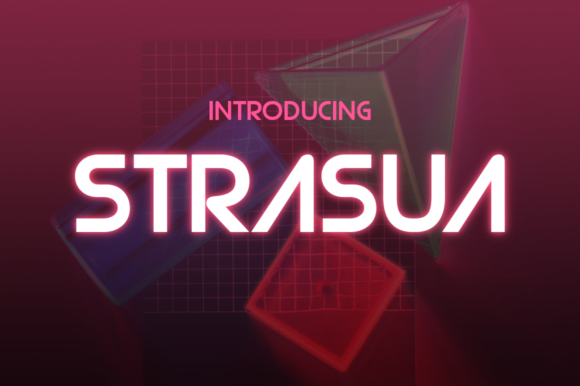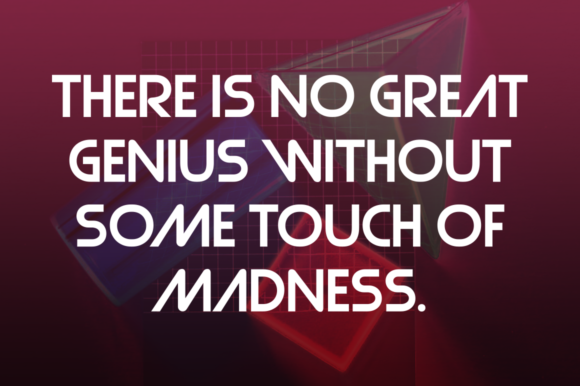
HomePersonal Use FreeStrasua Personal Use Free Strasua FacebookTwitterPinterestWhatsApp 1 of 2 About Strasua Font Strasua is a cool, sleek display font that is perfect for use in modern and minimal technology driven designs. This free font comes from Typodermic. DOWNLOAD NOW People also explored Celistyne Font Pure Dance Font Ampersand | 48 Different Styles Font Mold Papa Dino Font Eldra Font South Font Rabitius Font Zincand Font 118 0 TagsStrasuaStrasua Font Previous articlePlanet Benson 2Next articleUnispace LEAVE A REPLY Cancel reply Comment: Please enter your comment! Name:* Please enter your name here Email:* You have entered an incorrect email address! Please enter your email address here Website: Save my name, email, and website in this browser for the next time I comment. Personal Use Free Made of Concrete Personal Use Free Read more about this font Beloved Script Personal Use Free Read more about this font Ashay Personal Use Free Read more about this font Artisan Signature Personal Use Free Read more about this font BLOG Best Fonts for YouTube Videos: Make Your Thumbnails Stand Out Best Fonts for YouTube Videos: Make Your Thumbnails Stand Out Choosing the right font can make a massive difference in how your YouTube videos perform.... Using Fonts in Digital Marketing: Tips to Strengthen Your Brand Identity Free vs Paid Fonts: Why Investing in Premium Fonts Is Worth It To increase your work productivity, choose the most readable fonts.